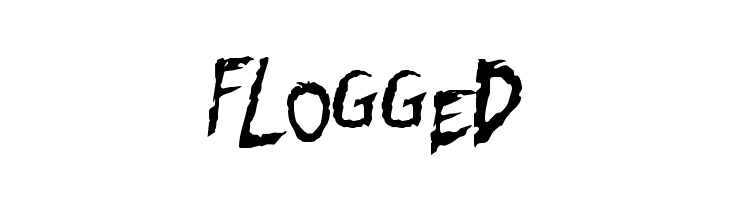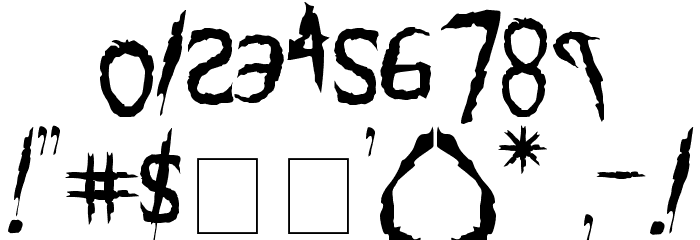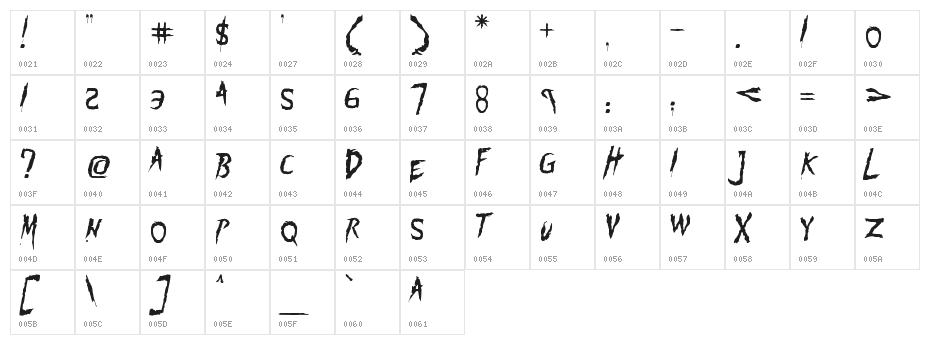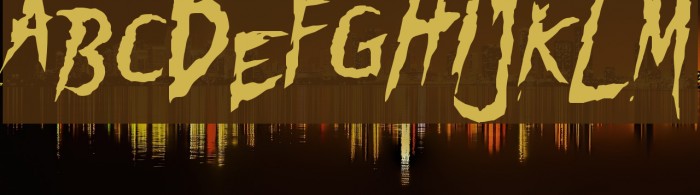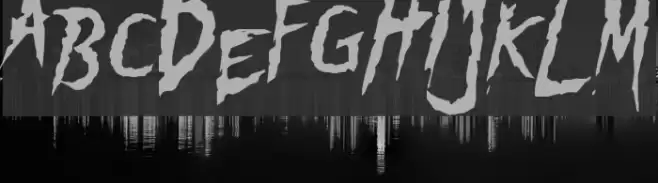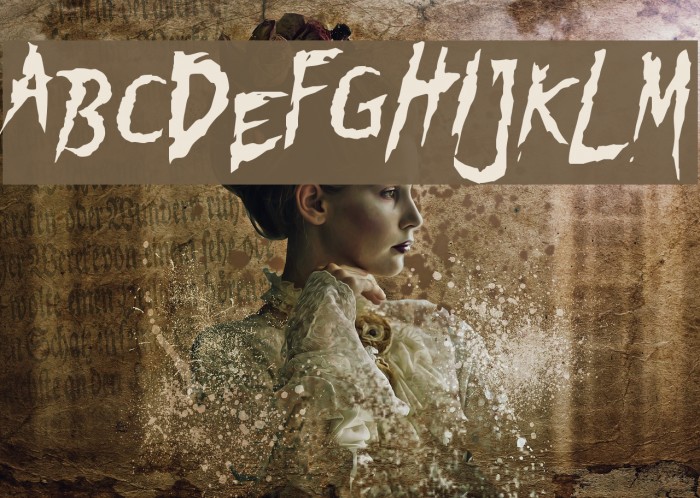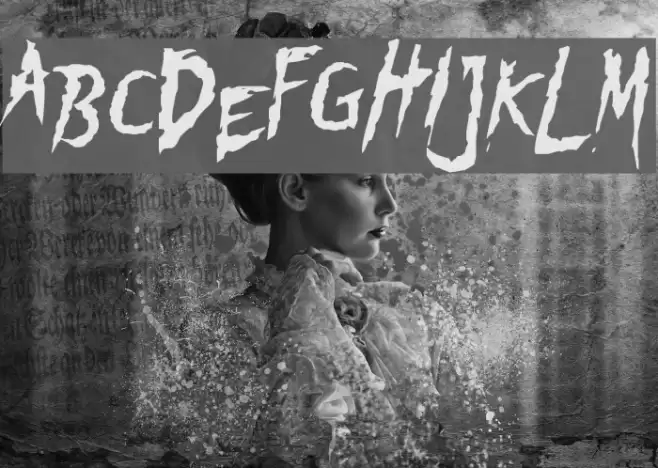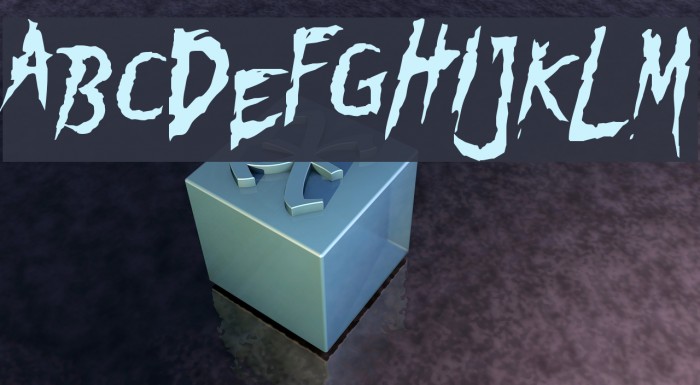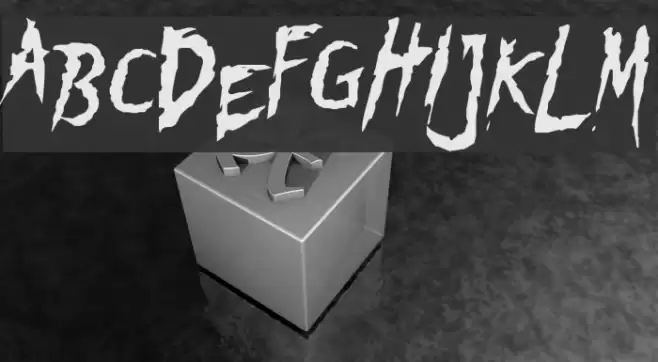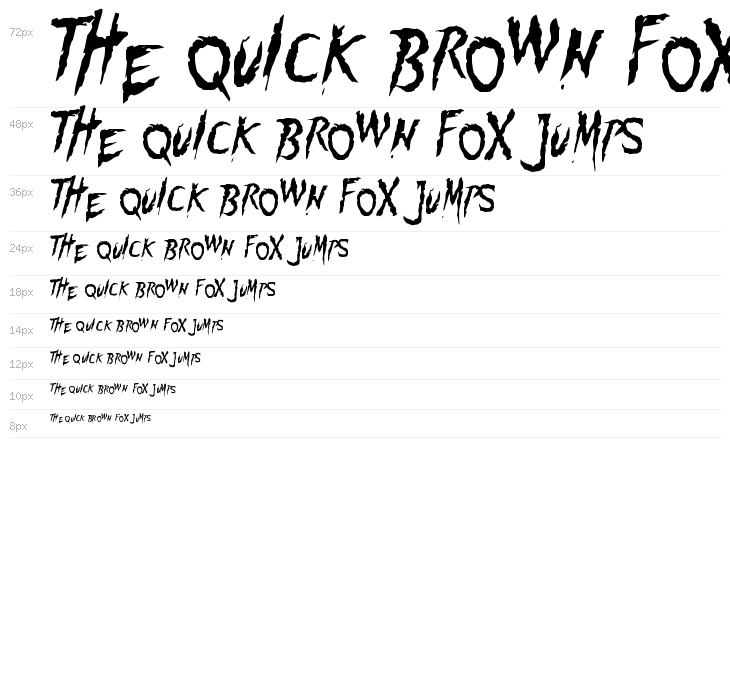
Flogged Font
Flogged Description
This font features a rugged, distressed style with jagged edges and an uneven texture, reminiscent of torn paper or rough brush strokes. The characters are bold and dynamic, with a sense of movement and energy. The uppercase and lowercase letters maintain a consistent style, while the numbers and special characters follow the same rough aesthetic. This font is visually striking and commands attention, making it suitable for designs that require a bold statement.
Proposed ProjectsIdeal for horror-themed designs, edgy posters, album covers, and any project needing a bold, dramatic impact.